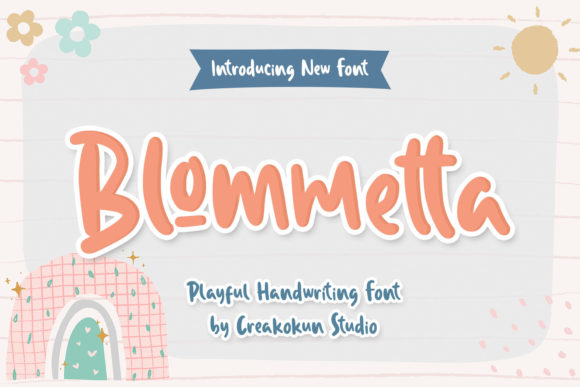
The Blommetta Font: A Whimsical Addition to Your Design Arsenal
I’ll never forget the time I was working on a project for a children’s book, and I just couldn’t find the right font to match the playful tone of the story. The client wanted something that would appeal to kids, but still look professional enough for a published book. That’s when I stumbled upon the Blommetta font. **It was love at first sight!** ❤️ This cute and charming display font has since become a staple in my design toolbox, and I’m excited to share its awesomeness with you.
An Honest Review of Blommetta
What I Love About Blommetta ✨
- Its whimsical and quirky personality, perfect for projects that need a playful touch 🎉
- The font’s excellent legibility, even at smaller sizes 📚
- Beautifully designed glyphs and stylistic alternates, giving you plenty of creative options 🤩
- Works great for both digital and print projects, making it super versatile 📊
- Easy to pair with other fonts, thanks to its unique yet harmonious style 🎨
While Blommetta is an amazing font, it’s not without its limitations. ⚠️ Here are a few things to keep in mind:
- It might not be the best choice for very formal or corporate projects, as it’s quite playful 😊
- Some of the more intricate glyphs might not display correctly on older systems or browsers 📊
The Backstory Behind Blommetta
While the origins of Blommetta might be shrouded in mystery, it’s easy to imagine that its designer was inspired by the whimsical world of flowers, gardens, and children’s illustrations. 🌼 Perhaps they wanted to create a font that would bring a smile to people’s faces and add a touch of playfulness to their designs. Whatever the inspiration, Blommetta has undoubtedly become a beloved font among designers and crafters.
Q: What type of projects is Blommetta best suited for?
Blommetta is perfect for projects that require a playful, whimsical touch, such as children’s books, social media graphics, invitations, or craft projects.
Q: Does Blommetta support OpenType features?
Yes, Blommetta supports OpenType features, including glyphs and stylistic alternates, which can add an extra layer of creativity to your designs.